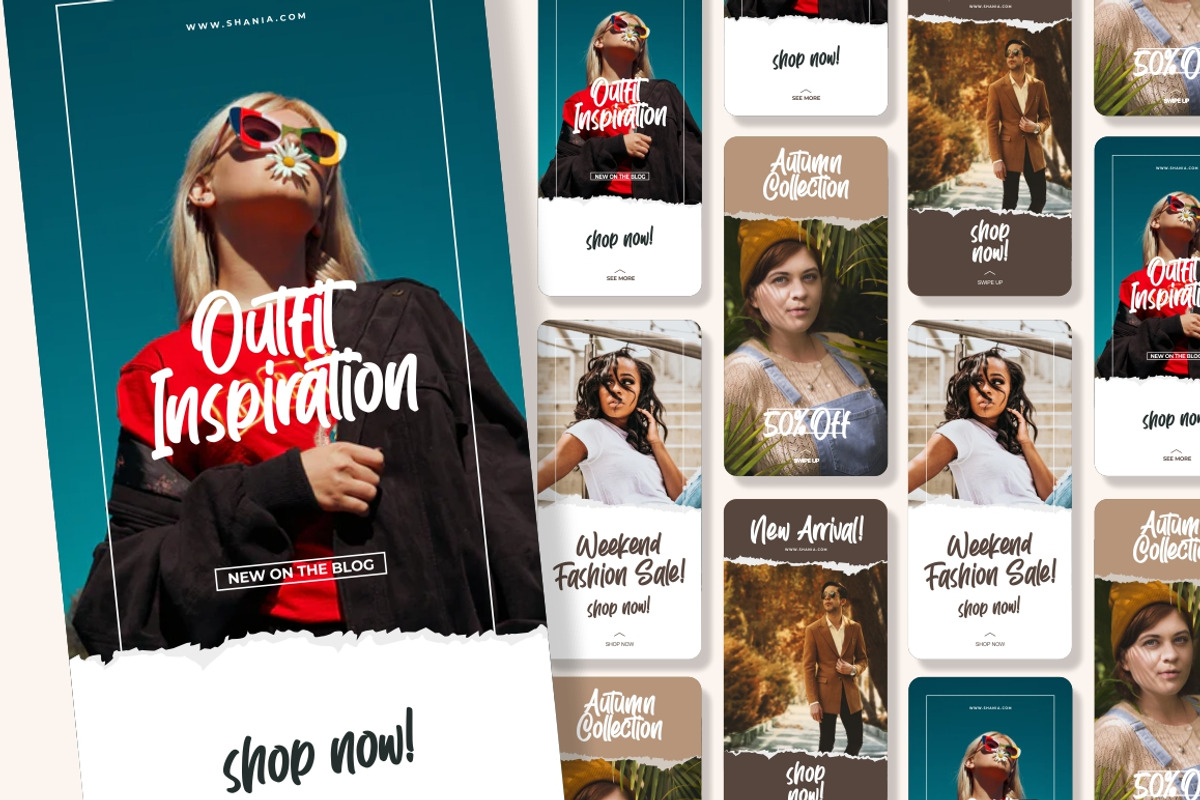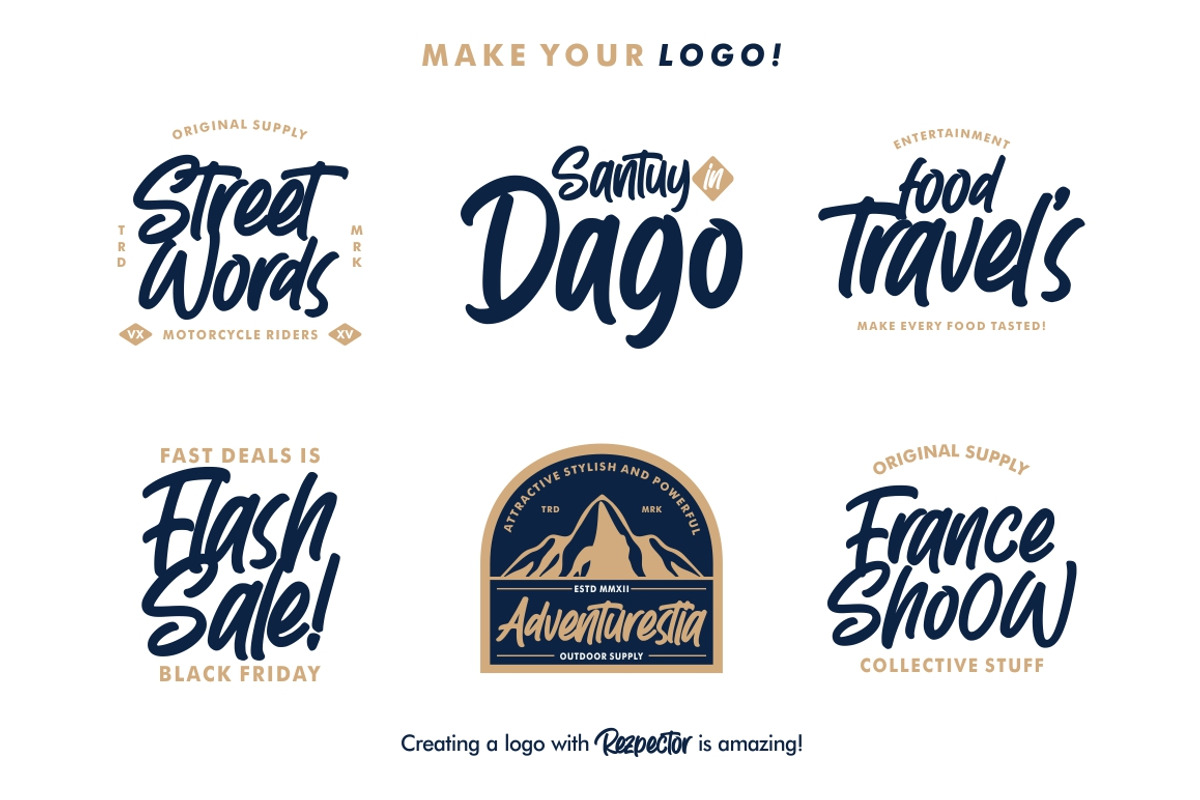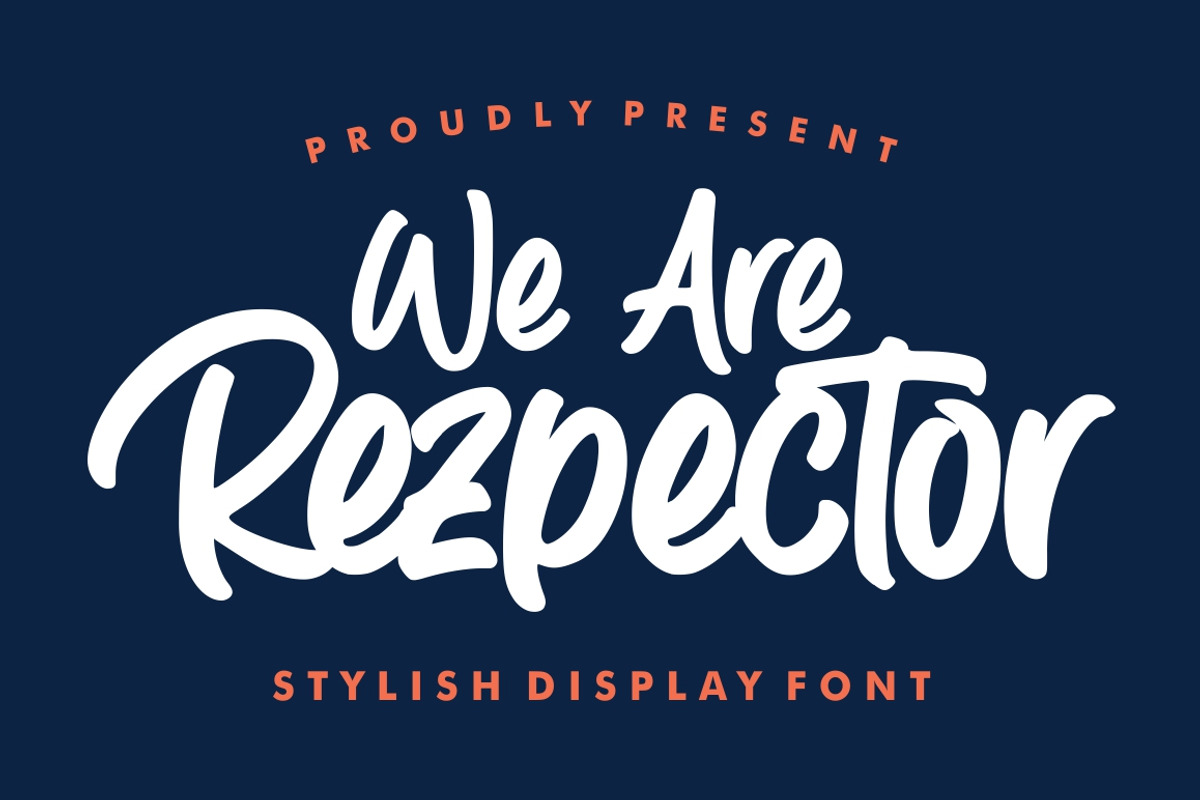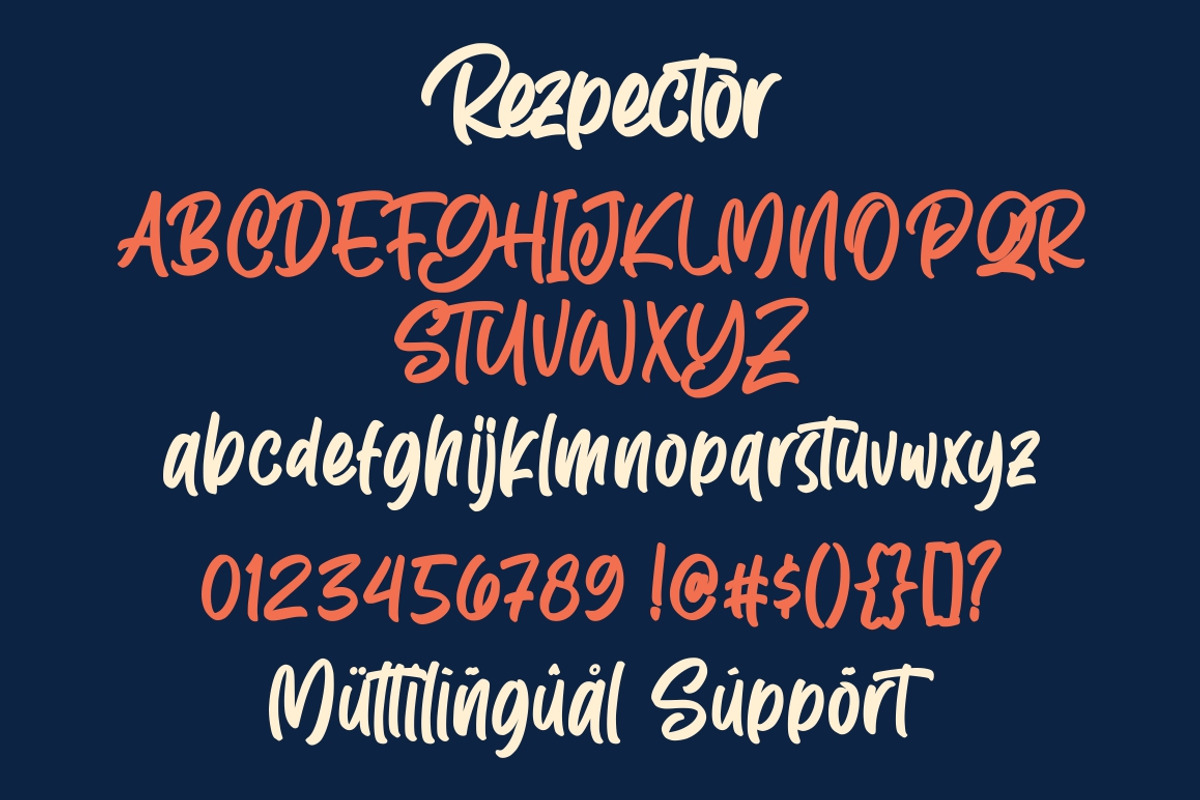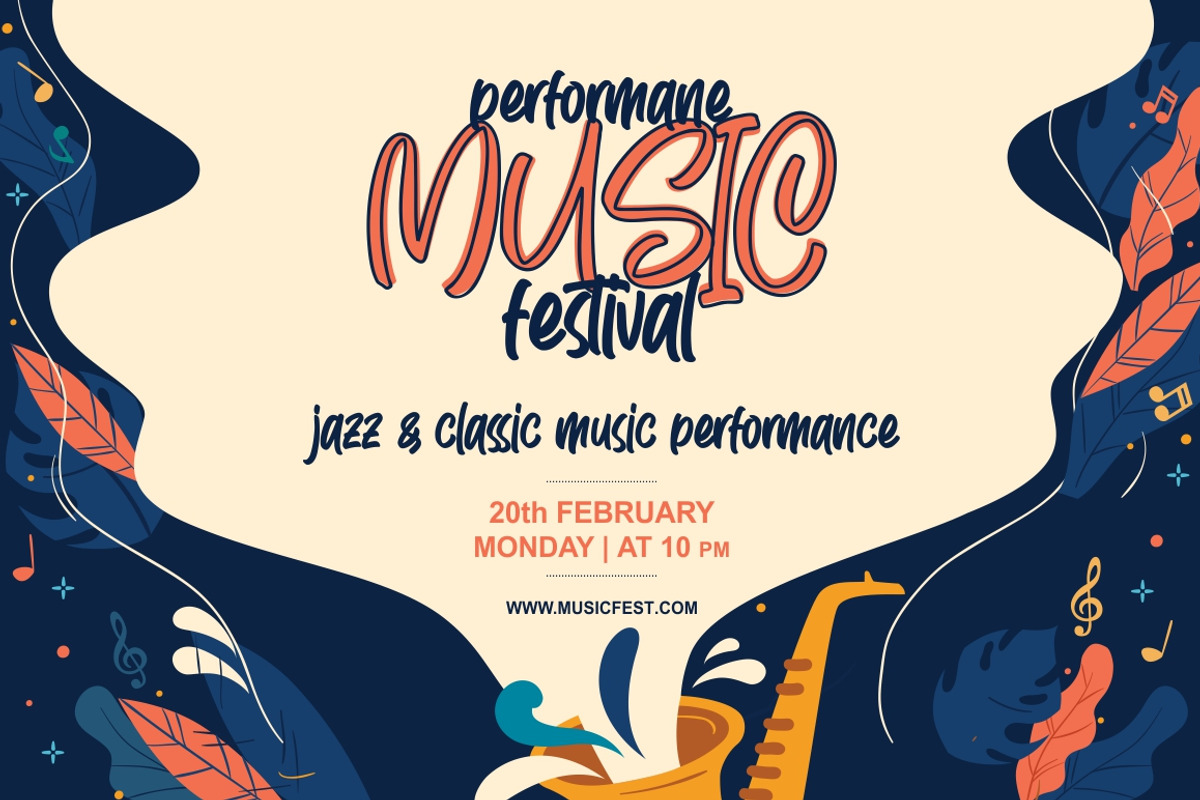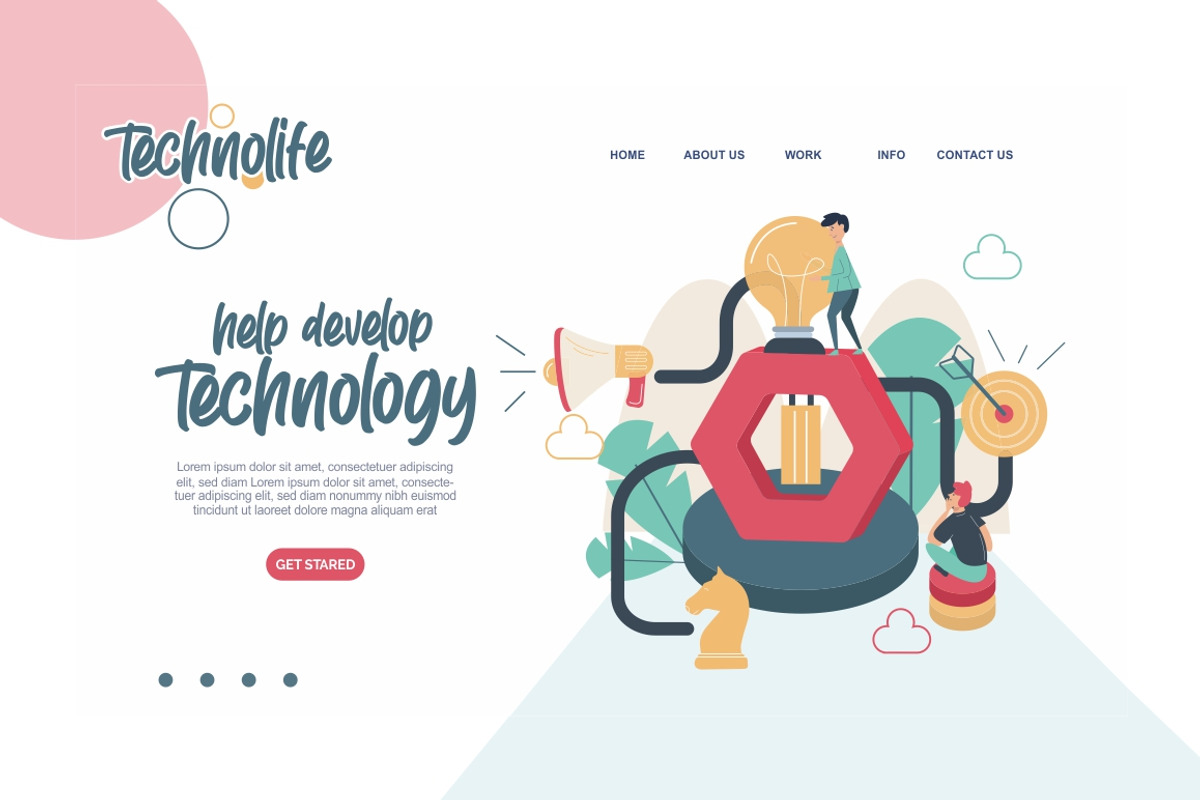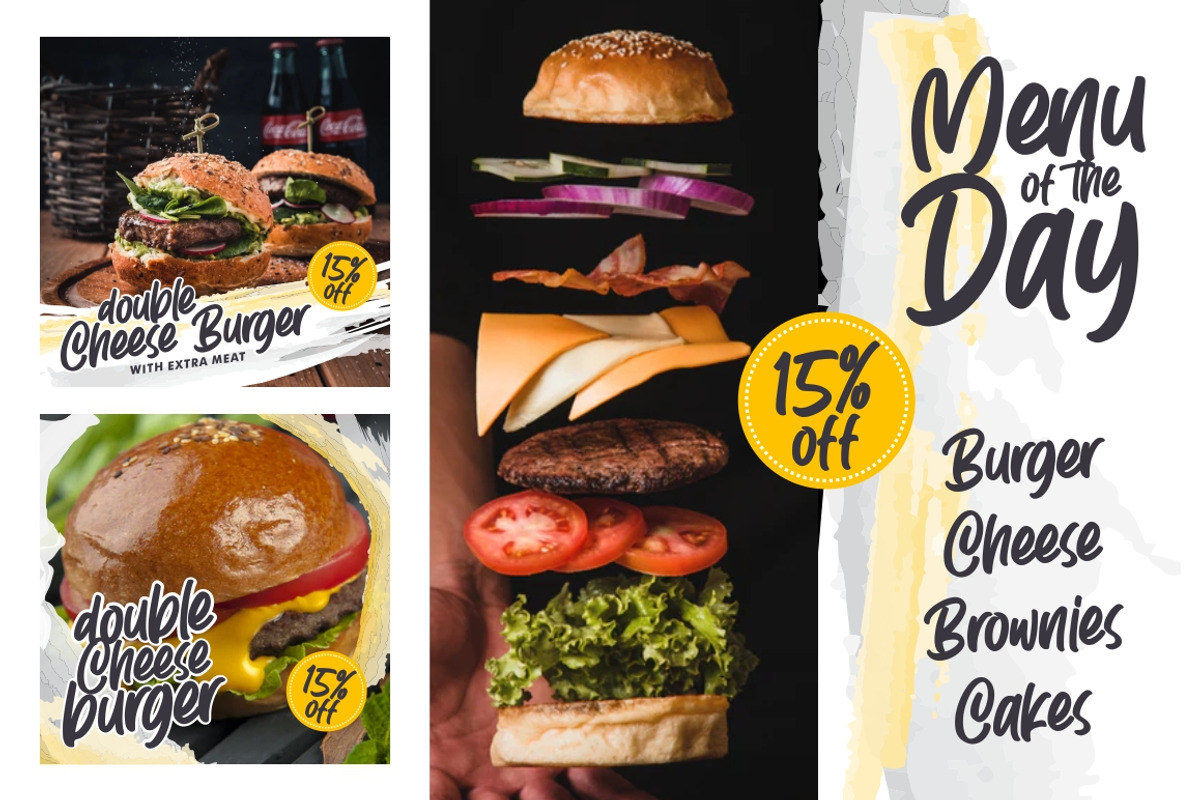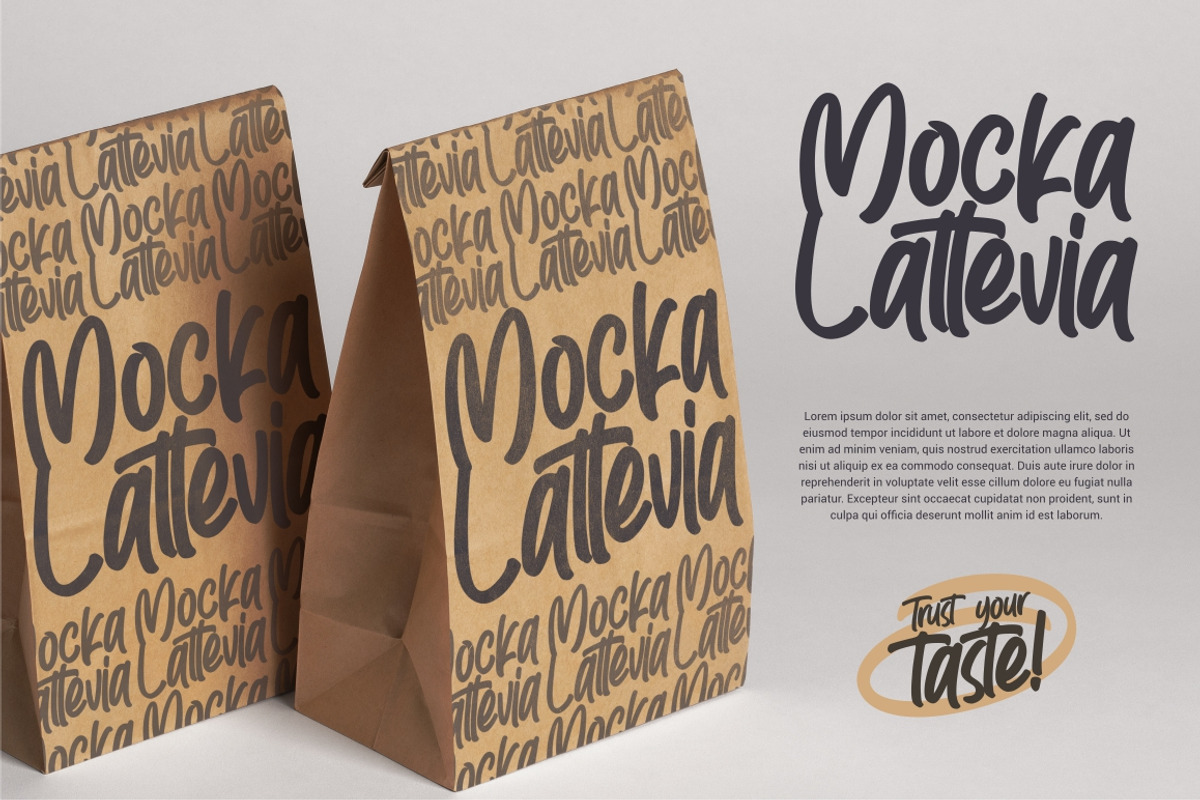
Rezpector - Stylish Display Font
Rezpector combines attractive curves with a fresh urban edge; delivering a stylish script which is guaranteed to add an eye-catching appeal to your logo designs, brand imagery, quotes, product packaging, merchandise & social media posts
All font included Slant versions
Uppercase & Lowercase letters
Support for 14 Languages: Afrikaans Albanian Danish Dutch English Estonian Finnish French Italian Norwegian Portugese Spanisch Swedish Zulu
Rezpector - Stylish Display Font by Garisman Std fits naturally into Branding, posters, packaging, typography.